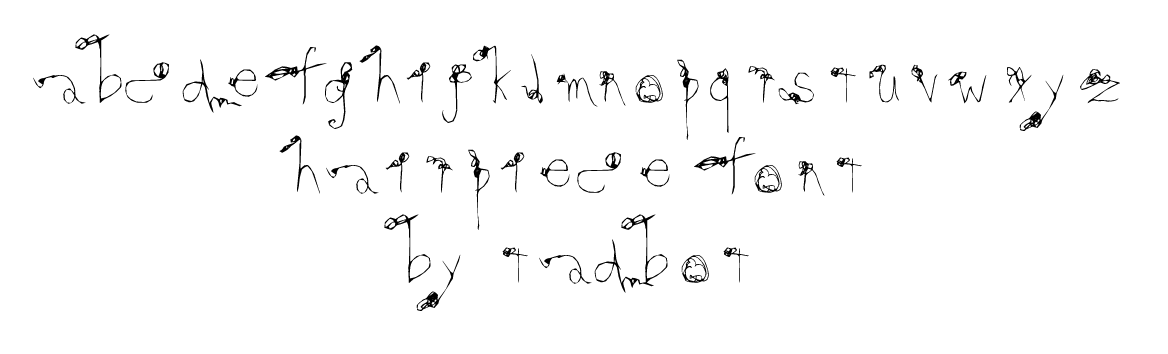
A font that I made from some scribbled letters. It's not what I'd consider a complete font (it only has lowercase a-z; leading and sizing could use some adjustment), but I'm putting it here in case anyone wants to use it.